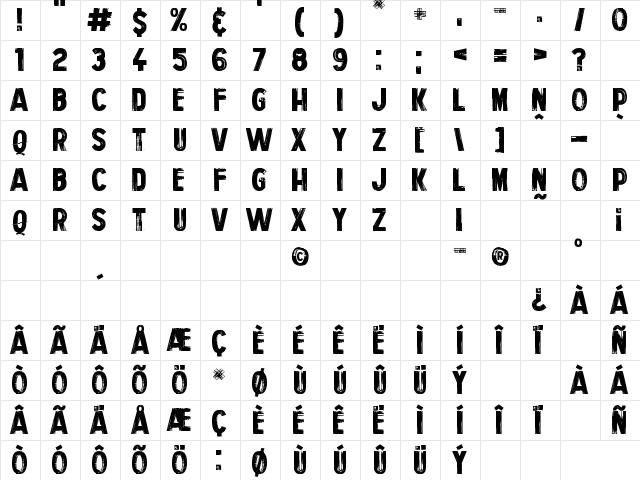
Personal Services Regular
Designer: IMAGEX
Design Context for Personal Services
Personal Services is a composed and adaptable typeface that performs quietly and consistently across a wide range of design contexts.